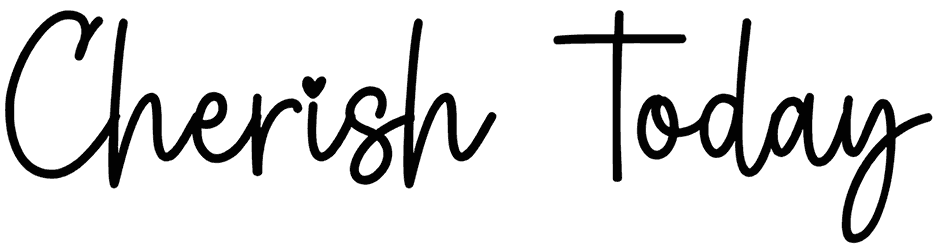
Cherish Today Font
Success in designing remarkable graphic content is what comes to you after choosing a wonderful script font such as Cherish Today. Since it comes with soft edges and a crooked style, it can bring a sense of delicacy, innovation, momentum, or fierceness to your artwork.
This handwritten font can be included in magazines, video game user interfaces, applications, blog posts, or storybook illustrations. Considering all its advantages, skipping this masterpiece will not be a good idea.